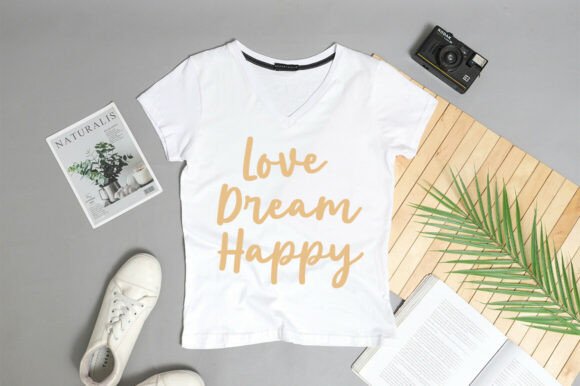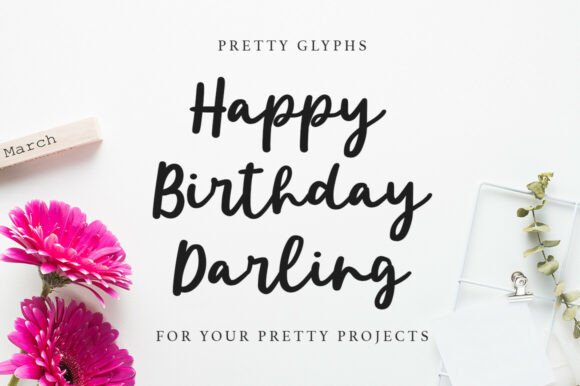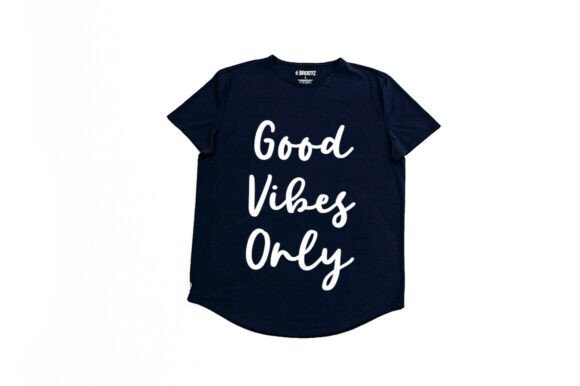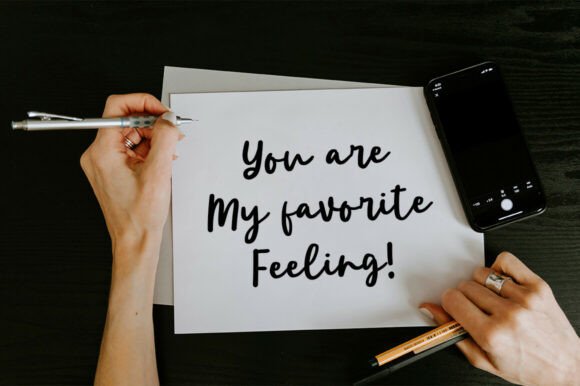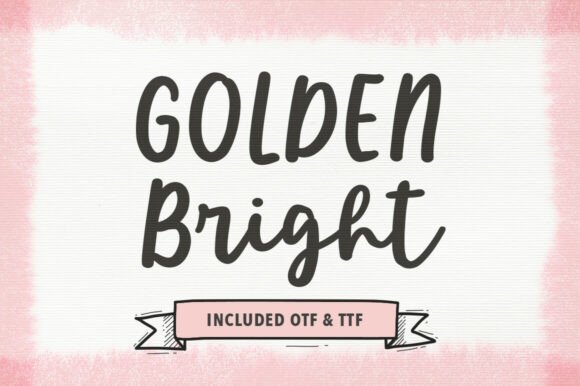
Introducing Golden Bright Font: Elevate Your Design with Sophistication and Elegance
In the world of typography, finding the perfect balance between strength and elegance can be a daunting task. However, with the Golden Bright font, designers and crafters can now effortlessly elevate their creations with a sophisticated and versatile typeface duo. This stunning font combination pairs a solid, bold display style with a graceful, flowing script, making it an essential tool for high-end branding and editorial design.
The Perfect Balance: Strength and Elegance
The Golden Bright typeface is designed to offer the perfect balance between strength and elegance. The bold display style exudes confidence and power, while the flowing script adds a touch of sophistication and refinement. This harmonious combination allows designers to create complex hierarchies in their logos and headers that feel both timeless and modern.
The Golden Bright font is incredibly versatile, making it suitable for a wide range of design applications. Some of the most popular uses for this font include:
- Luxury lifestyle magazines: Add a touch of sophistication and glamour to your editorial designs with the Golden Bright font.
- Wedding stationery sets: Create beautiful and elegant wedding invitations, save-the-dates, and thank-you cards with this stunning typeface.
- Professional business cards: Elevate your business cards with a touch of “golden” prestige, making a lasting impression on potential clients.
Layering for Perfection
The Golden Bright typeface truly shines when the two styles are layered together. By combining the bold display style with the flowing script, designers can create intricate and visually appealing designs that capture the essence of luxury and sophistication. This layering technique allows for endless creativity, enabling designers to experiment with different combinations and hierarchies to achieve the perfect look.
Key Features of Golden Bright Font
- Sophisticated and versatile typeface duo
- Pairs a solid, bold display style with a graceful, flowing script
- Perfect balance between strength and elegance
- Suitable for high-end branding and editorial design
- Endless design possibilities, including luxury lifestyle magazines, wedding stationery sets, and professional business cards
Why Choose Golden Bright Font?
With the Golden Bright font, designers and crafters can:
- Elevate their designs with a touch of sophistication and elegance
- Create complex hierarchies in logos and headers that feel both timeless and modern
- Experiment with layering techniques to achieve unique and visually appealing designs
- Access a versatile typeface duo suitable for a wide range of design applications
In conclusion, the Golden Bright font is a game-changer for designers and crafters seeking to elevate their creations with sophistication and elegance. With its perfect balance of strength and elegance, this versatile typeface duo is sure to become an essential tool in any designer’s arsenal. Whether you’re working on luxury lifestyle magazines, wedding stationery sets, or professional business cards, the Golden Bright font is the perfect choice for adding a touch of “golden” prestige to your designs.